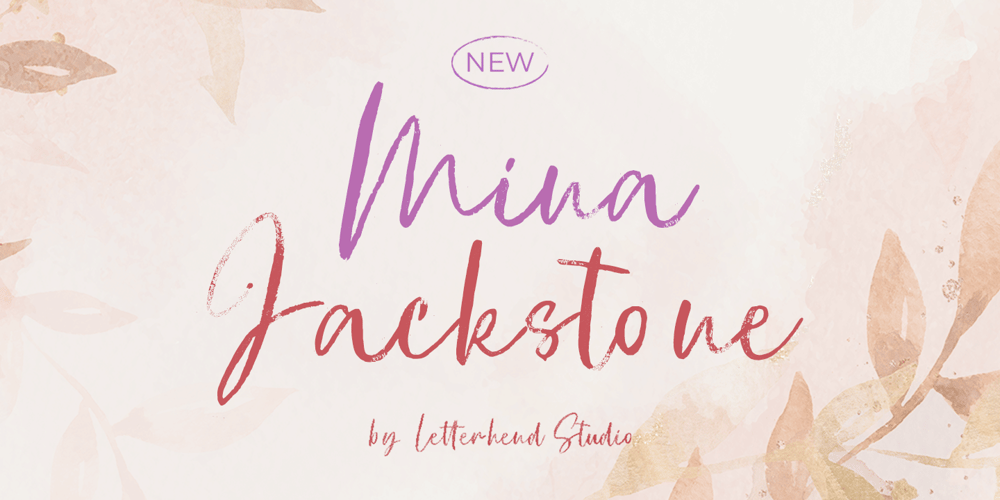
Mina Jackstone Font Family was designed by Hendry Juanda and published by Letterhend. Mina Jackstone contains 1 styles and family package options. Mina Jackstone is a SVG typeface with watercolor texture effect. Available in two types, solid version and transparent version. This type of font perfectly made to be applied such as invitations, labels, logos, magazines, books, greeting / wedding cards, packaging, fashion, make up, stationery, novels, labels or any type of advertising purpose.Features : Solid version and svg version numbers and punctuation multilingual ligatures PUA encoded We highly recommend using a program that supports OpenType features and Glyphs panels like many of Adobe apps and Corel Draw, so you can see and access all Glyph variations. How to access opentype feature : letterhend.com/tutorials/using-opentype-feature-in-any-software/